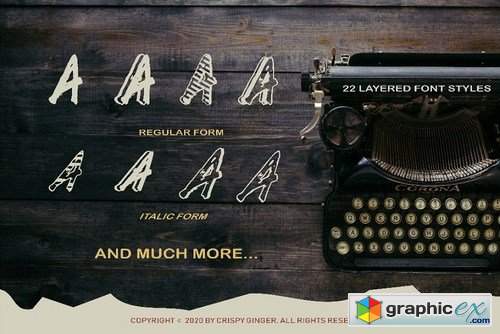
Kotoba Dua - 22 Font styles
Kotoba Dua - 22 Font styles and 150 Swashes
Kotoba dua represents the best of organic curves with sharp modern edges. Sophisticated and edgy, it's everything you want out of a display font. It looks amazing at large sizes and, also, small sizes.